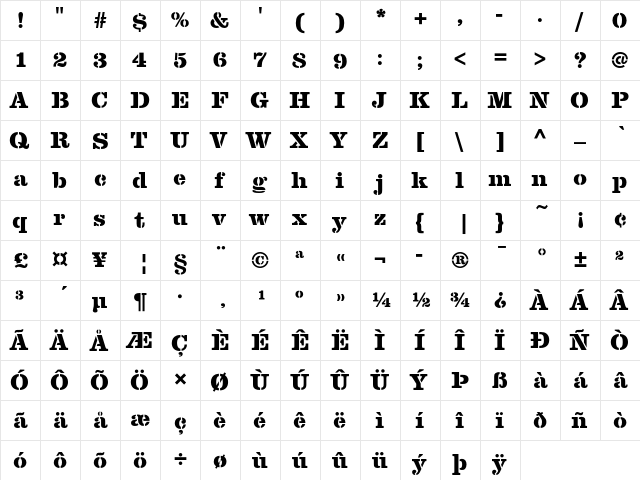
Clarendon D OT Stencil Extra Bold
Design Context for Clarendon D OT Typeface
Clarendon D OT has the rough pragmatism of spray-painted stencil signage, adding a raw, street-level authenticity to designs. The heavy weight commands attention and anchors typographic hierarchies.
Ideal for industrial branding, streetwear, military-adjacent aesthetics, and urban signage projects.
Pro Tip: Pair Clarendon D OT with raw, utilitarian design elements — exposed concrete textures, flat colour, and minimal ornamentation suit it well.